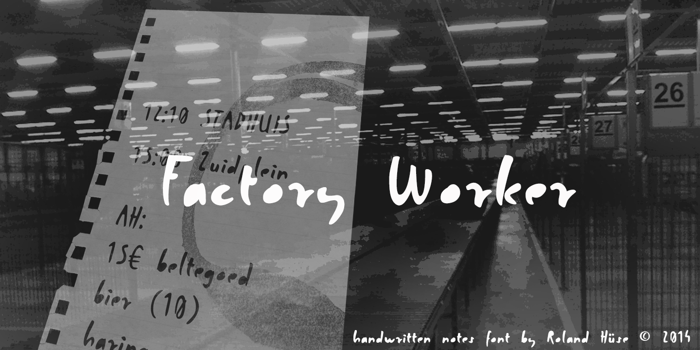
Factory Worker Font
FACTORY WORKER is a hand drawn scribble font inspired by years I spent as a factory worker in the Netherlands.(I am still a factory worker though: I work in my own font factory)